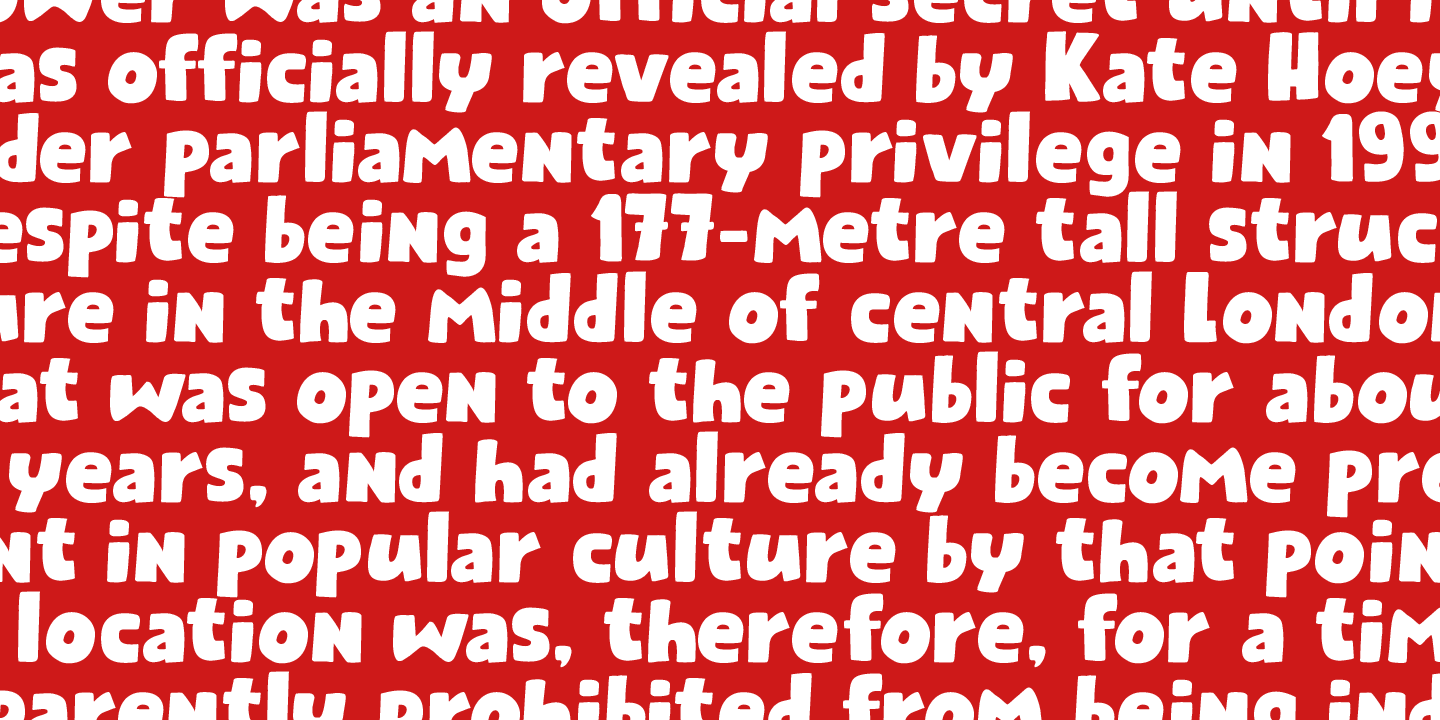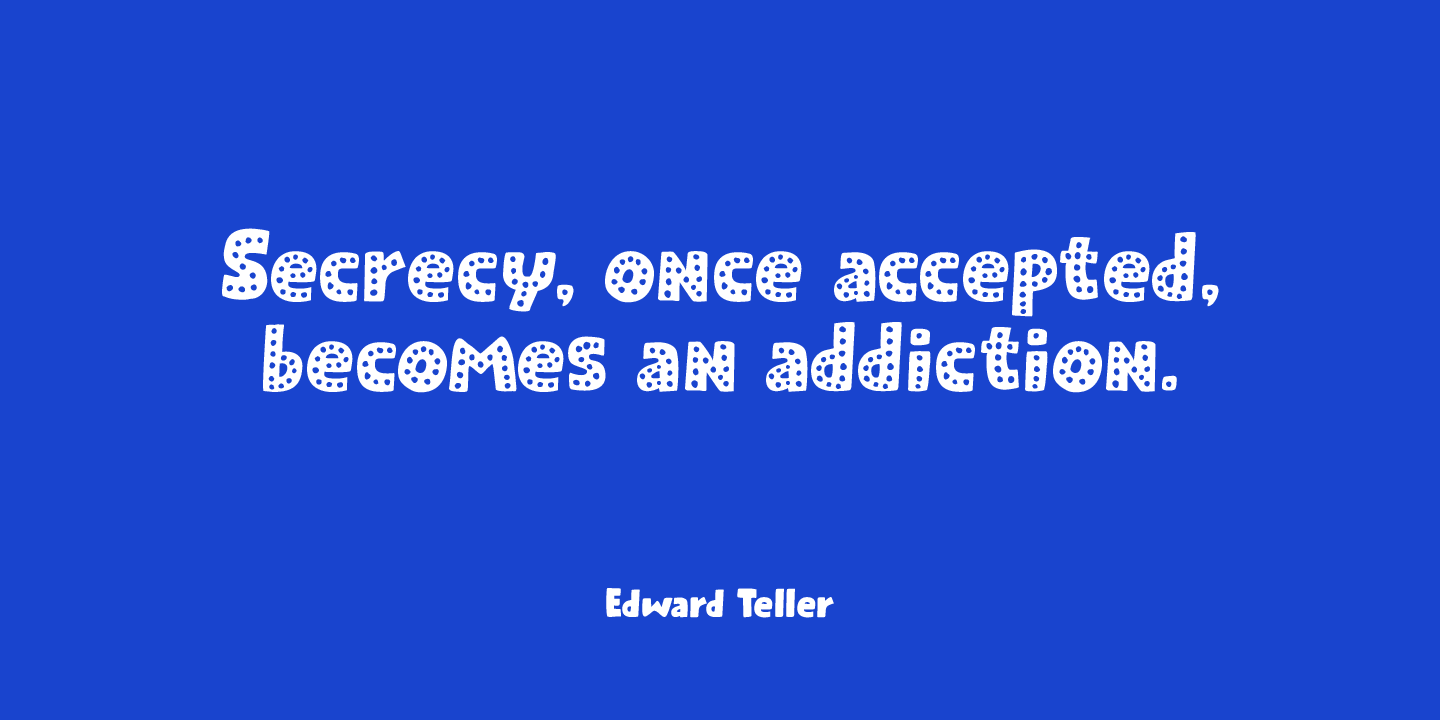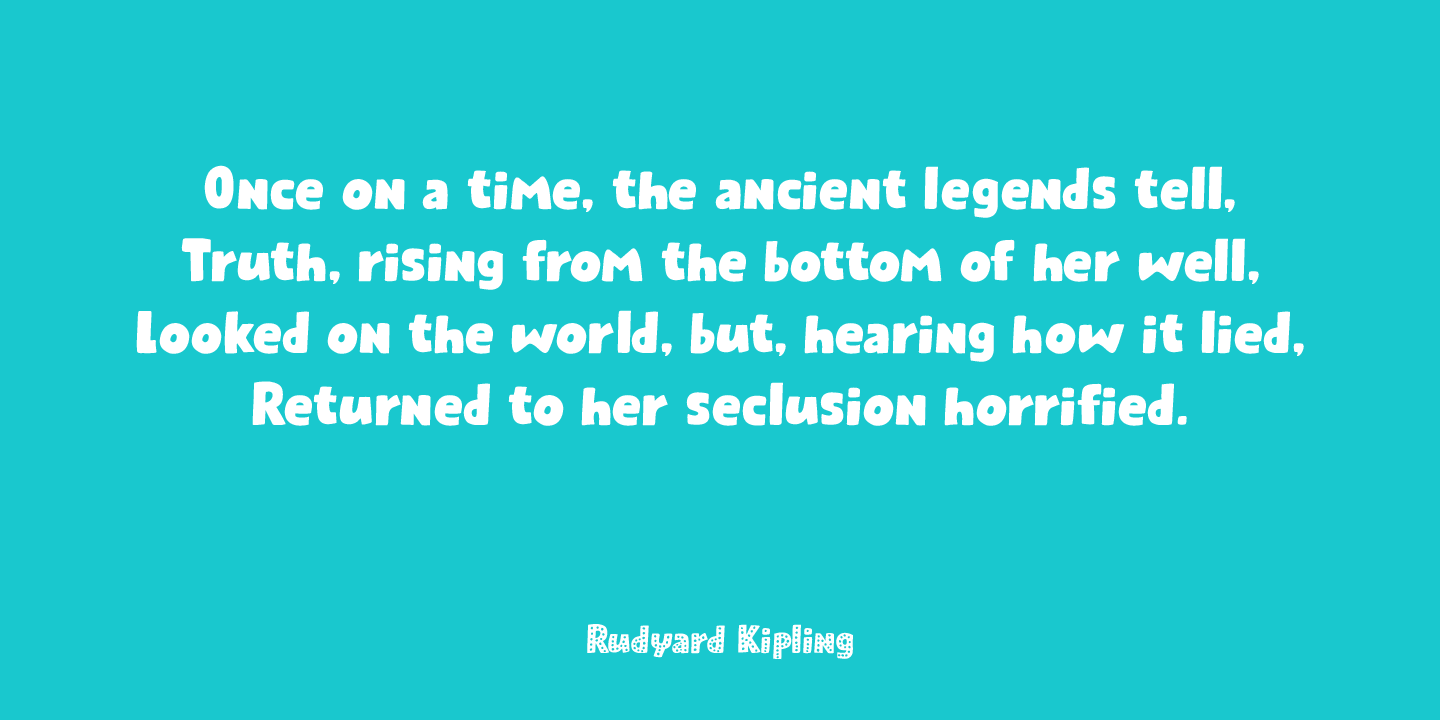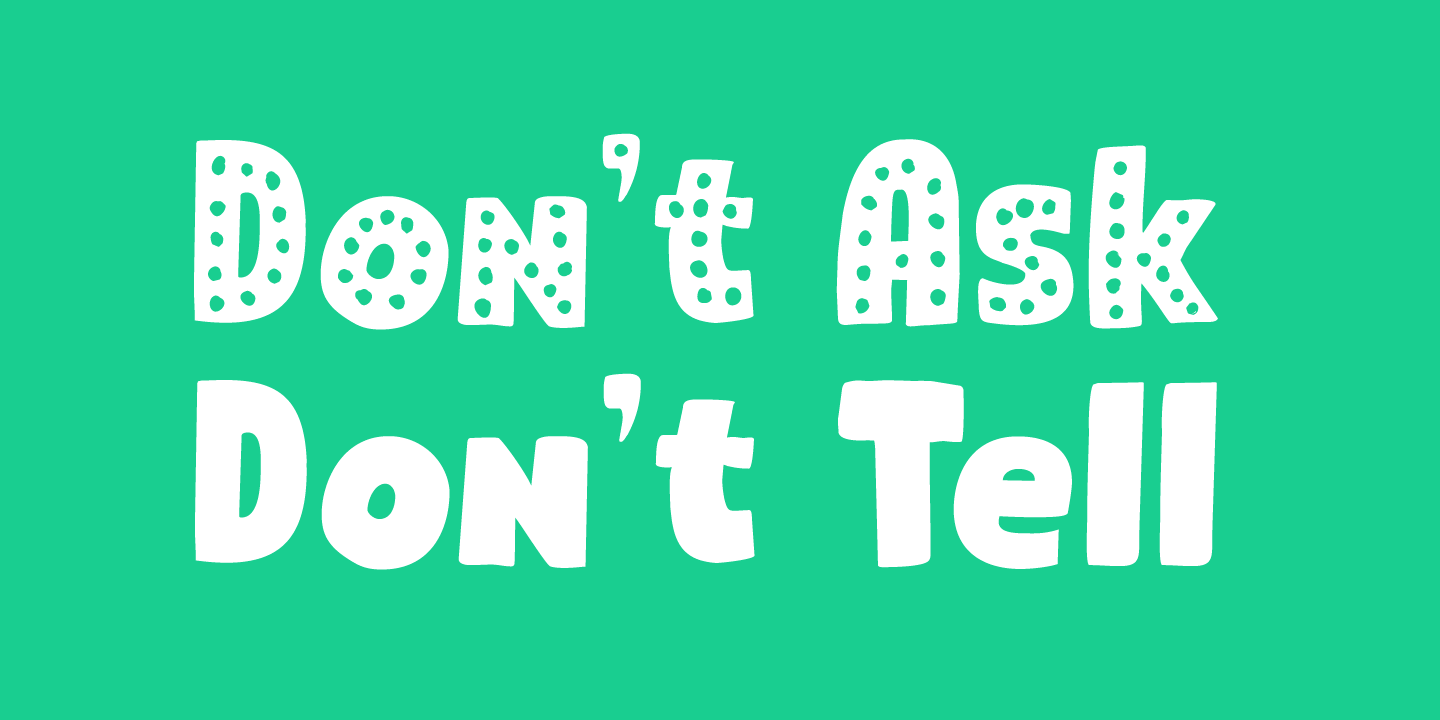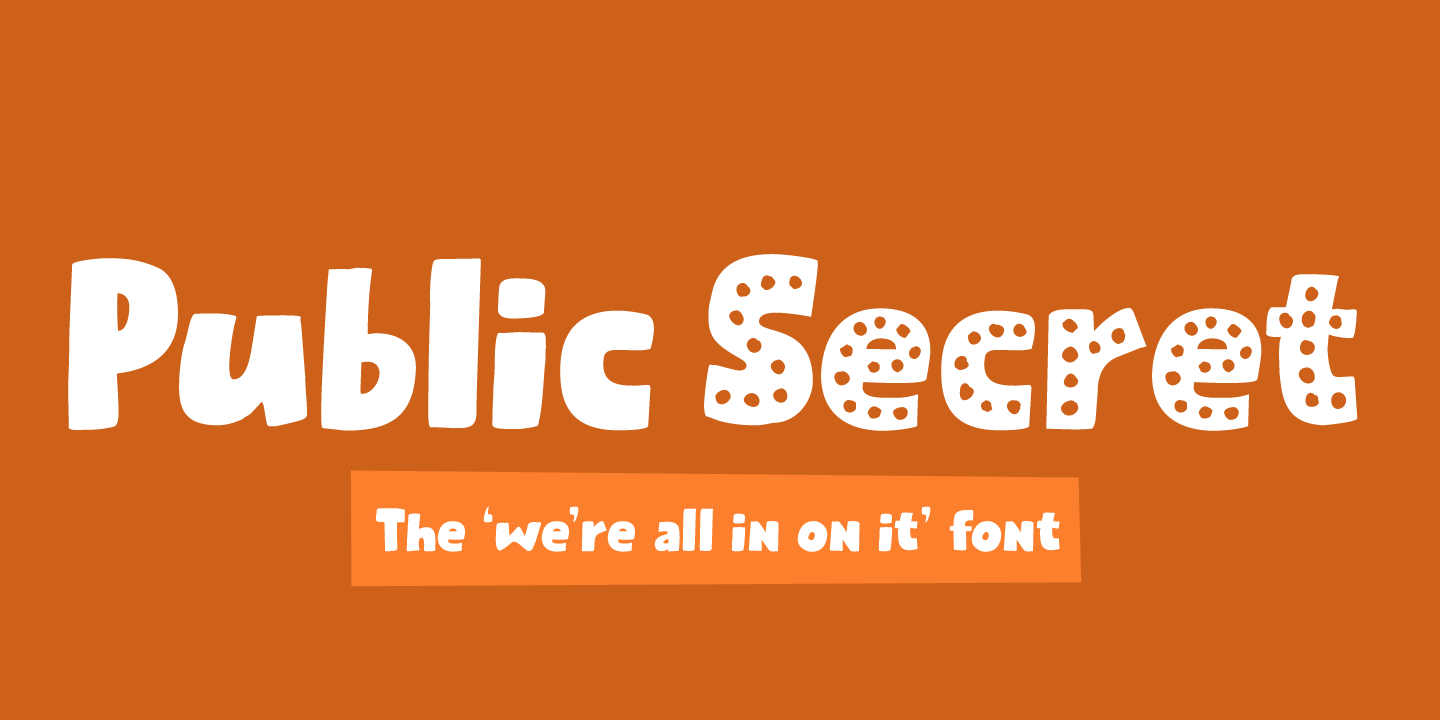
About Public Secret
A Public Secret (or Open Secret) is something that is widely known, although it is not supposed to be. Public Secret is a hand drawn font (I used a fineliner) that I made in between building a shower, a toilet and a laundry room? Yes, it\’s all in a day\’s…